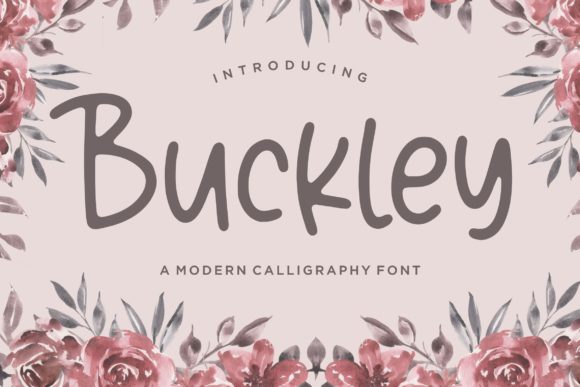
Buckley Font: The Epitome of Sophistication and Elegance for Your Creative Endeavors
Journey into the realm of visual artistry with Buckley Font, a script font family that embodies grace and charm. Handcrafted by the renowned Balpirick, Buckley is more than just a collection of letters; it's an ode to creativity, inviting you to elevate your designs and unleash your imagination.
Unleash the Power of Simplicity and Natural Beauty
Buckley Font captivates with its unassuming elegance, showcasing the beauty of simplicity in every curve and stroke. Its hand-drawn aesthetic evokes a sense of authenticity, adding a touch of warmth and personality to your designs.
A Versatile Canvas for Your Branding Aspirations
Buckley Font stands as the perfect companion for your branding endeavors, seamlessly adapting to a myriad of applications. Whether you're crafting a captivating logo, designing eye-catching product packaging, or creating an unforgettable invitation, Buckley Font gracefully complements your vision.
Elevate Your Designs with a Touch of Elegance
Buckley Font effortlessly elevates your designs, adding a touch of sophistication that resonates with your audience. Its refined lines and elegant curves command attention, leaving a lasting impression that sets your creations apart.
A Symphony of Harmony for Your Creative Projects
Buckley Font harmonizes effortlessly with a wide spectrum of design styles, enhancing your projects with its innate versatility. From rustic and vintage to modern and minimalist, Buckley Font seamlessly blends, adding a touch of timeless elegance to each concept.
Experience Artistic Freedom Like Never Before
With Buckley Font at your disposal, the boundaries of creativity dissolve. Explore the depths of your imagination, knowing that this remarkable font family will faithfully capture your vision, transforming your ideas into captivating realities.